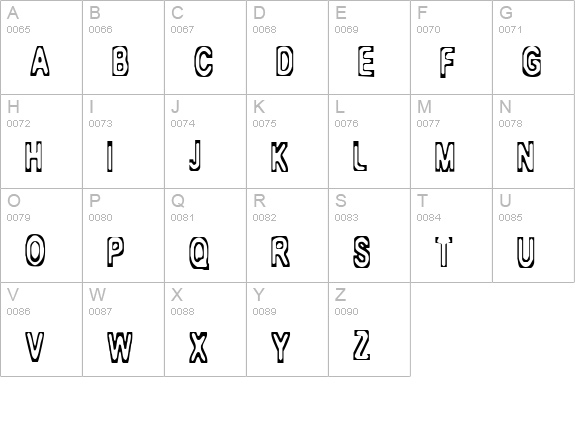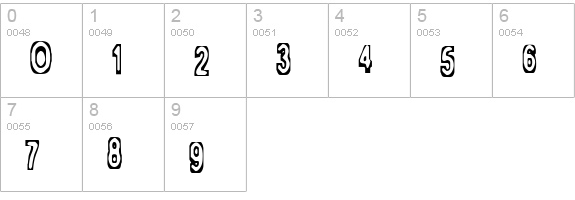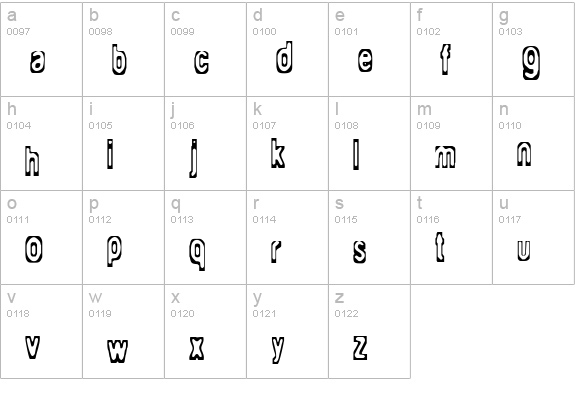
Mialgia Font Details
Mialgia font is a stunning display typeface that exudes elegance and sophistication. With its sleek lines and modern aesthetic, this font is perfect for adding a touch of class to any design project. The fluid curves and sharp angles of Mialgia font create a harmonious balance that is both eye-catching and easy to read. What sets Mialgia font apart is not only its impeccable design but also the fact that it is available for free. Yes, you read that right - this exquisite font can be downloaded at no cost from FontsMarket.com. Whether you're working on a branding project, a website design, or any other creative endeavor, Mialgia font is sure to elevate your work and leave a lasting impression. Don't miss out on this fantastic opportunity to enhance your designs with Mialgia font - download it for free today!